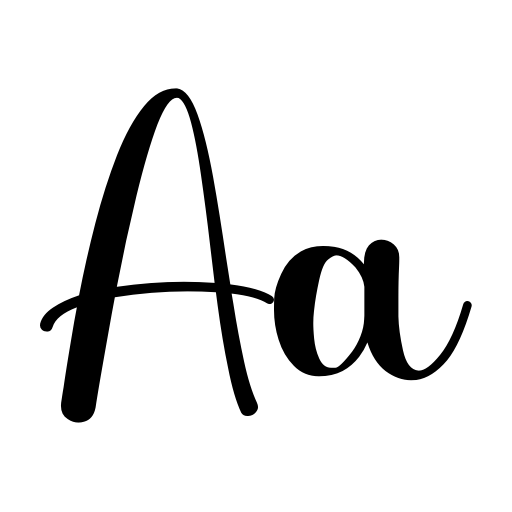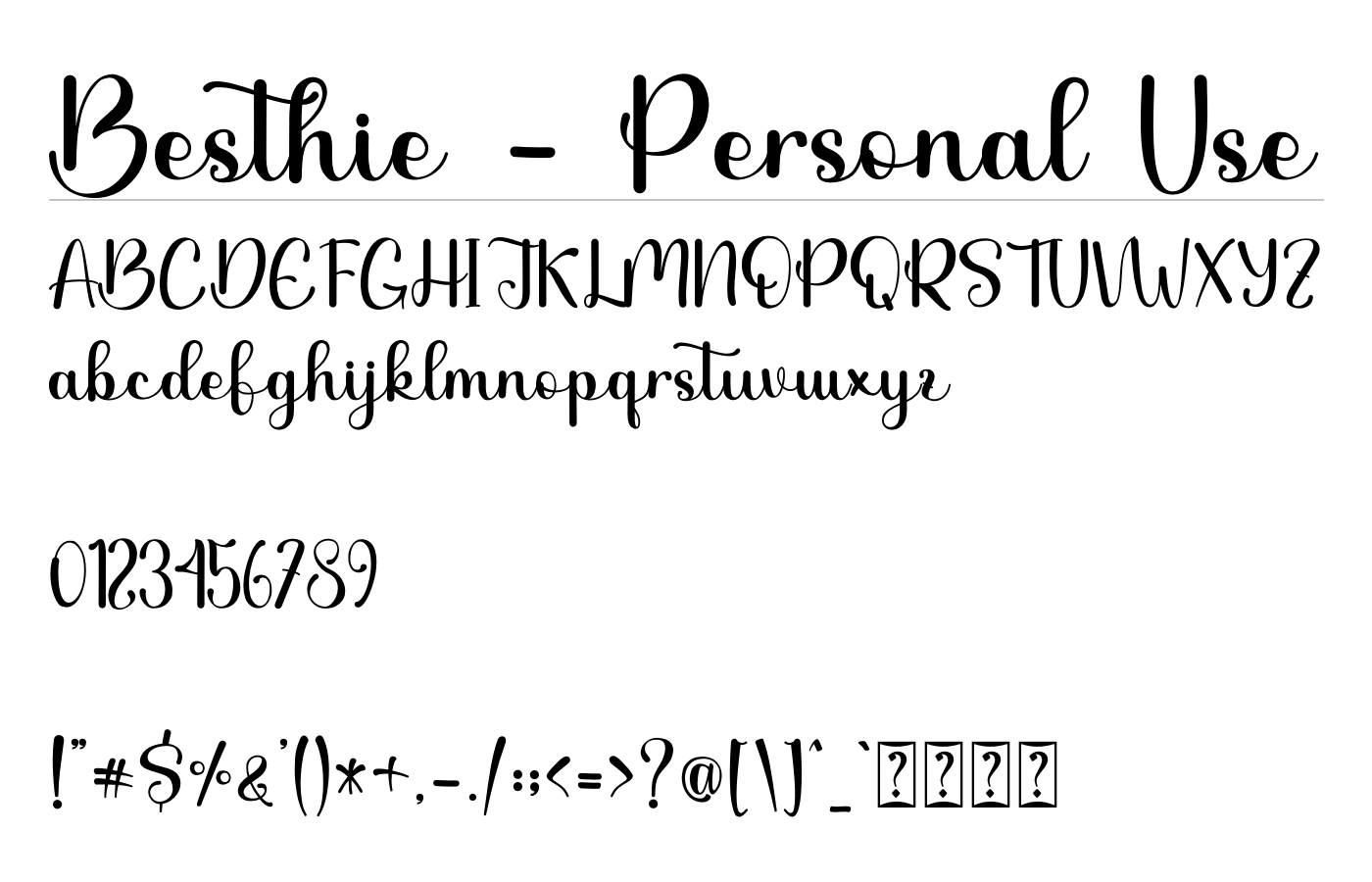
Besthie is a charming handwritten script font with a playful yet elegant style, featuring smooth curves and a moderate contrast between thick and thin strokes. Its whimsical letterforms and balanced spacing make it perfect for personal projects, invitations, and branding that seeks a friendly, approachable vibe with a touch of sophistication. This font works well in headlines and decorative text where a warm, handcrafted feel is desired.
Besthie - Personal Use Font
About Besthie - Personal Use Font